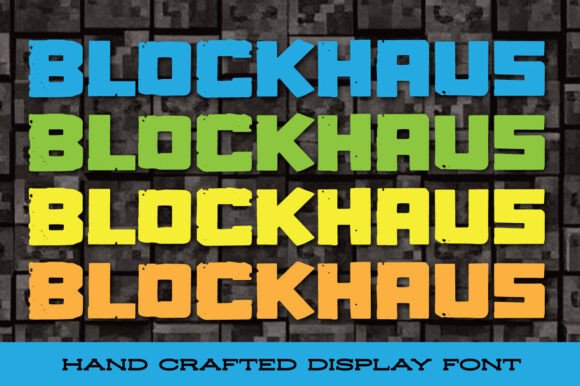
Introducing Blockhaus Font: The Ultimate Choice for Bold and Impactful Designs
In the world of typography, fonts play a crucial role in conveying messages, evoking emotions, and creating lasting impressions. Among the myriad of fonts available, Blockhaus stands out as a powerful and attention-grabbing typeface that has been making waves in the design community. Designed to command attention with its ultra-thick, blocky presence, Blockhaus is an ideal choice for designers looking to make a statement with their work.
The Making of Blockhaus: A Study in Boldness
Blockhaus is more than just a font; it’s a design statement. Its creation is rooted in the need for a typeface that could convey strength, resilience, and a modern industrial aesthetic. The designers aimed to craft a font that would be instantly recognizable, versatile, and capable of making an impact across various mediums, from digital screens to print materials.
The geometric shapes and gritty lines that characterize Blockhaus are a testament to its industrial inspiration. Each character is meticulously designed to exude a sense of solidity and permanence, making it perfect for headlines, posters, logos, and branding projects that demand maximum visibility and impact.
Key Features of Blockhaus Font
- Ultra-Thick and Blocky Design: The defining feature of Blockhaus is its ultra-thick, blocky design. This makes it highly legible, even at smaller sizes, and gives it a commanding presence on any medium.
- Geometric Shapes and Gritty Lines: The font’s geometric shapes and gritty lines contribute to its industrial feel. These elements not only make Blockhaus visually striking but also versatile enough to be used in a variety of design contexts.
- Modern Industrial Aesthetic: Blockhaus is perfect for designs that aim to convey a modern industrial aesthetic. Its clean lines and blocky appearance evoke a sense of contemporary industrial design.
- Retro-Inspired Look: Beyond its modern appeal, Blockhaus also lends itself well to retro-inspired designs. Its bold and sturdy presence can evoke a sense of nostalgia, making it suitable for projects that require a vintage vibe.
- Versatility: One of the key strengths of Blockhaus is its versatility. It can be used in a wide range of applications, from headlines and posters to logos and branding projects.
Applications of Blockhaus Font
The unique characteristics of Blockhaus make it suitable for a variety of applications. Here are some of the most notable uses:
- Headlines and Titles: For any publication, advertisement, or digital content, headlines are crucial in grabbing the reader’s attention. Blockhaus, with its bold and blocky design, is perfect for creating headlines that stand out.
- Posters and Flyers: Posters and flyers are often used for promotional purposes. A font like Blockhaus can make these materials more eye-catching and effective in conveying their message.
- Logos and Branding: For businesses looking to create a strong and memorable brand identity, Blockhaus can be a valuable asset. Its unique design can help a brand stand out in a crowded market.
- Digital Media: In the digital realm, Blockhaus can be used in website headers, social media graphics, and digital advertisements. Its clear and legible design ensures that messages are conveyed effectively across various platforms.
Tips for Using Blockhaus Font Effectively
While Blockhaus is a powerful font, its effectiveness largely depends on how it’s used. Here are some tips for incorporating Blockhaus into your designs:
- Pair with Simpler Fonts: When using Blockhaus for headlines, pair it with simpler, more readable fonts for body text. This contrast enhances readability and creates visual hierarchy.
- Consider the Color Scheme: The impact of Blockhaus can be further amplified by choosing the right color scheme. High contrast colors can make the text pop, while monochromatic schemes can offer a more subtle look.
- Experiment with Sizes: One of the advantages of Blockhaus is its legibility at various sizes. Experiment with different sizes to see how it impacts your design.
- Use Sparingly: Due to its bold nature, Blockhaus is best used sparingly. Overusing the font can overwhelm the viewer and diminish its impact.
The Future of Blockhaus Font
As design trends continue to evolve, fonts like Blockhaus are likely to play a significant role in shaping visual communication. The future of Blockhaus looks promising, with potential applications in emerging areas such as:
- Motion Graphics: The bold and blocky design of Blockhaus makes it suitable for motion graphics, where its geometric shapes and gritty lines can add a dynamic element to animations.
- Virtual and Augmented Reality: As VR and AR technologies become more prevalent, fonts that can convey strength and clarity will be in high demand. Blockhaus, with its sturdy presence, is well-suited for these environments.
Blockhaus font represents a bold step forward in typography, offering designers a powerful tool to make their mark. Its ultra-thick, blocky design, geometric shapes, and gritty lines make it an ideal choice for projects that require maximum impact. Whether you’re aiming for a modern industrial look or a retro vibe, Blockhaus delivers strength and style in every character. As design continues to evolve, Blockhaus is poised to leave a lasting impression on the world of visual communication.